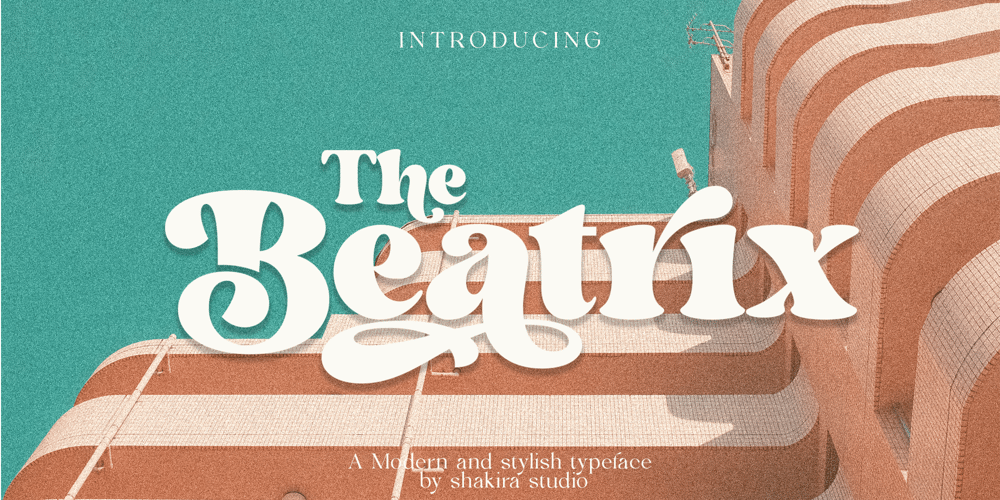
The Beatrix Font Family was designed by Idhham Cholid Rikzano Yahya and published by Shakira Studio. The Beatrix contains 1 styles and family package options. Say hello to new serif font, The Beatrix!The Beatrix is a serif font that offers the perfect combination of modern and retro feel to each letter. Bold and well-contoured in character, The Beatrix embodies a boldness and charm that cannot be overlooked. The design exudes classic serif elegance but with a touch of fresh, up-to-date style.The Beatrix accentuates uniqueness with a variety of stylish alternatives. Each character alternative provides an interesting creative dimension, presenting a fun combination of modern and retro styles. You as a designer have the freedom to explore and express your unique ideas through captivating typography.The Beatrix is an ideal choice for a variety of design projects. With a modern and retro feel, this font is suitable for use in headlines, logos, branding, marketing materials, posters, and many more. Whether it’s a project that wants to convey a contemporary feel or explore the charm of the retro era, The Beatrix has the flexibility to adapt and deliver a strong message.Here’s what you get: The Beatrix Regular All Multilingual symbol Opentype features ( ligature, alternate ) Accessible in the Adobe Illustrator, Adobe Photoshop, Adobe InDesign, even work on Microsoft Word. PUA Encoded Characters – Fully accessible without additional design software. Multilingual character supports : (Afrikaans, Albanian, Catalan, Croatian, Czech, Danish, Dutch, English, Estonian, Finnish, French, German, Hungarian, Icelandic, Italian, Lithuanian, Maltese, Norwegian, Polish, Portuguese, Slovenian, Spanish, Swedish, Turkish, Zulu)Follow my shop for upcoming updates, and for more of my work,Thank you!